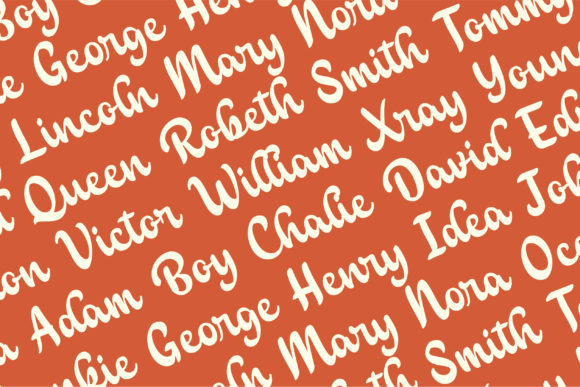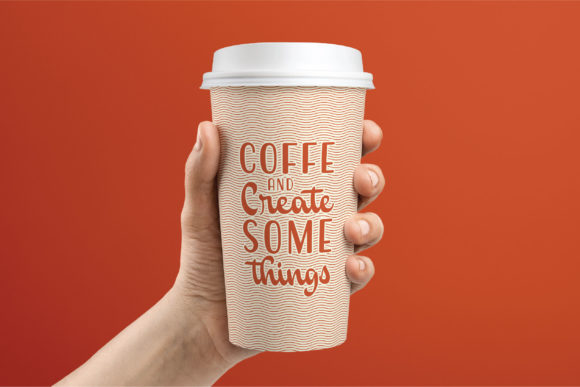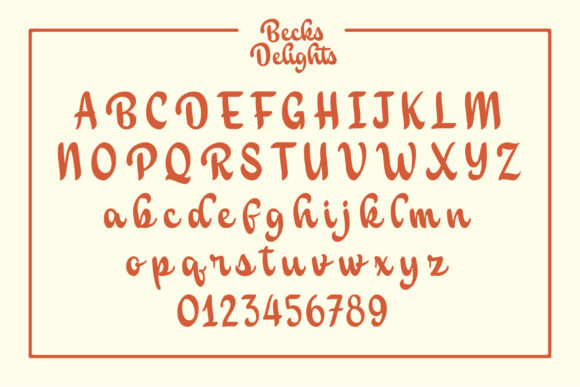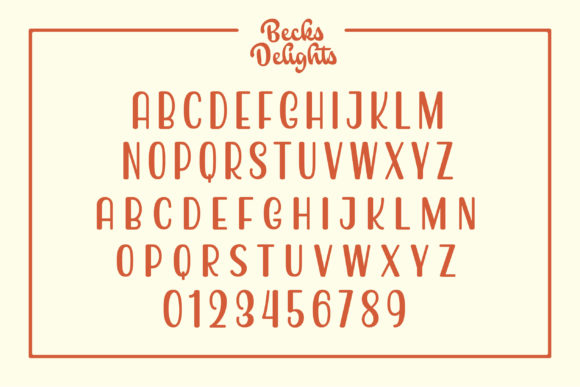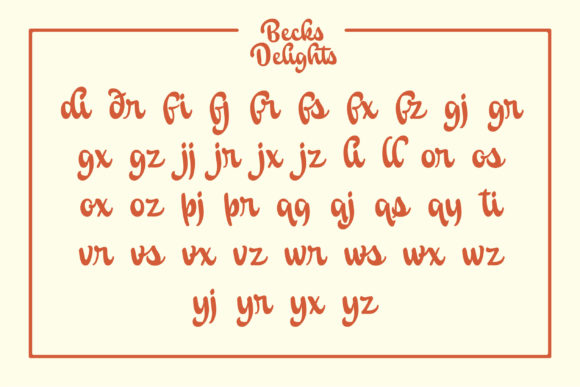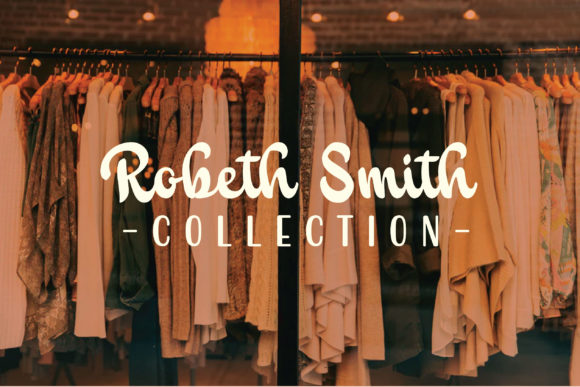
The Perfect Script for Your Next Design Project
Have you ever been brainstorming a new design idea, flipping through Pinterest boards and sketching out rough concepts, only to feel like something’s missing? That’s where the right font can make all the difference. It’s the cherry on top, the sparkle that elevates your design from good to great.
Enter Becks Delights Font, a vintage clean brush script that’s sure to add a touch of nostalgia and whimsy to your next project. Whether you’re designing a wedding invitation, a food blog, or a children’s book, this font is the perfect choice to add that special retro touch. As a designer, you know how valuable it is to have the right tools at your disposal, and Becks Delights Font is a valuable addition to any font collection.
Becks Delights Font Key Features
- Unique Characteristics: This font features a playful, cursive script with a whimsical feel, making it perfect for adding a touch of elegance and sophistication to various design projects.
Becks Delights Font Review
Overall, I think Becks Delights Font is a charming addition to any designer’s toolkit. Here’s a rundown of what I like about it and what I don’t.
- Unique aesthetic: Becks Delights Font has a distinct, whimsical feel that’s perfect for creating eye-catching graphics and headings.
- Customizability: The font comes in a range of weights and styles, making it easy to find the perfect fit for your design.
- Legibility: Despite its playful feel, Becks Delights Font is surprisingly easy to read, even at smaller font sizes.
- Limited language support: Becks Delights Font may not be the best choice for designs that require extensive language support.
- Not ideal for body text: While the font is great for headings and graphics, it may not be the best choice for body text due to its playful, attention-grabbing nature.
Becks Delights Font is a fun, versatile font that’s perfect for designers looking to add a touch of whimsy to their projects. While it may have some limitations, its unique aesthetic and customizability make it a great addition to any design toolkit.
Becks Delights Font is perfect for creating whimsical and playful designs.
Use it for:
– Children’s book covers and illustrations
– Food and beverage branding
– Advertising and marketing materials
Experiment with different font sizes, colors, and combinations to get the most out of Becks Delights Font.
What is the recommended font size for Becks Delights?
The recommended font size for Becks Delights is between 12pt and 24pt. This range provides optimal legibility and readability for body text and headings. However, feel free to experiment with different font sizes to achieve the desired visual effect in your design.